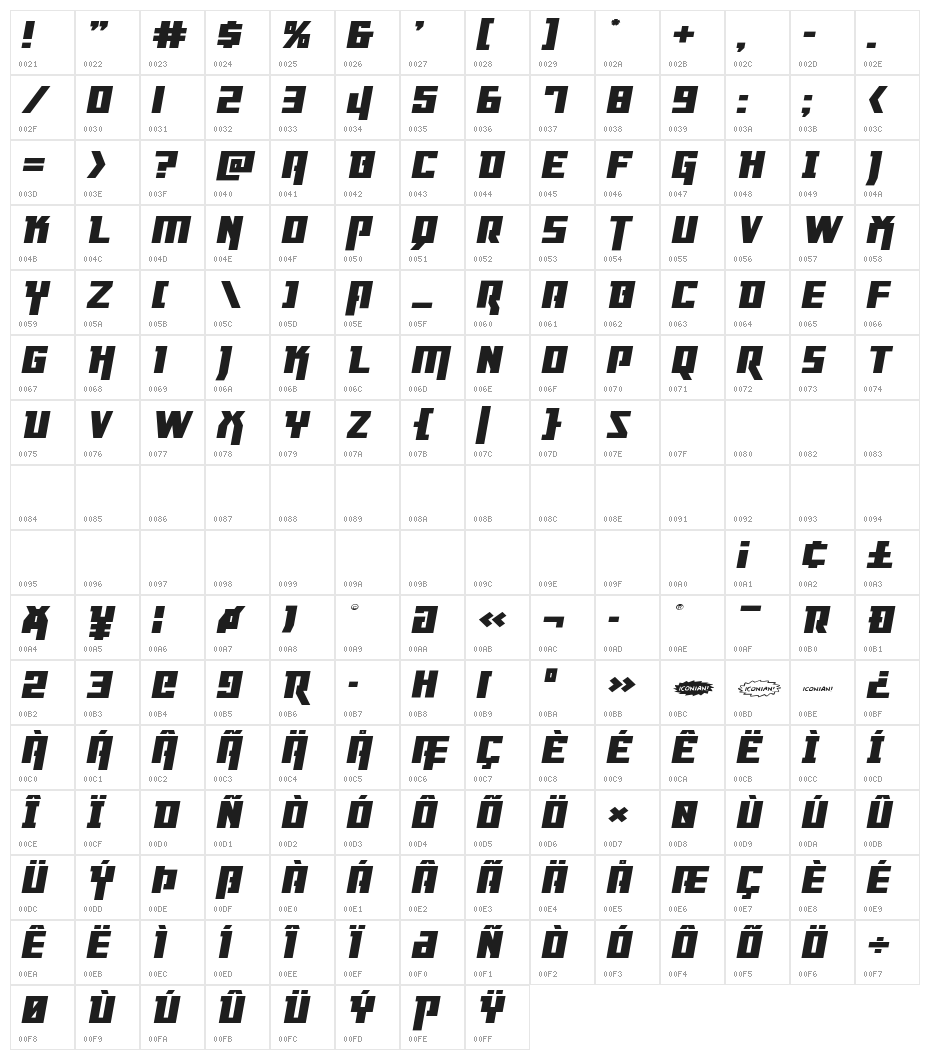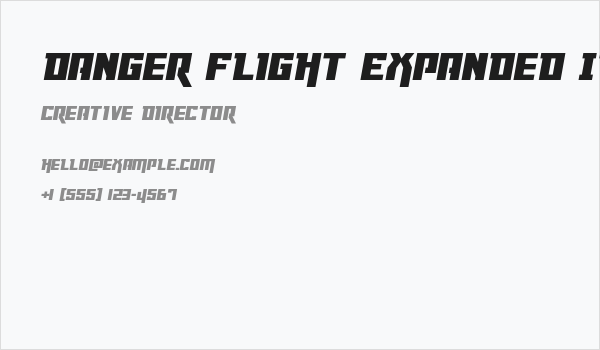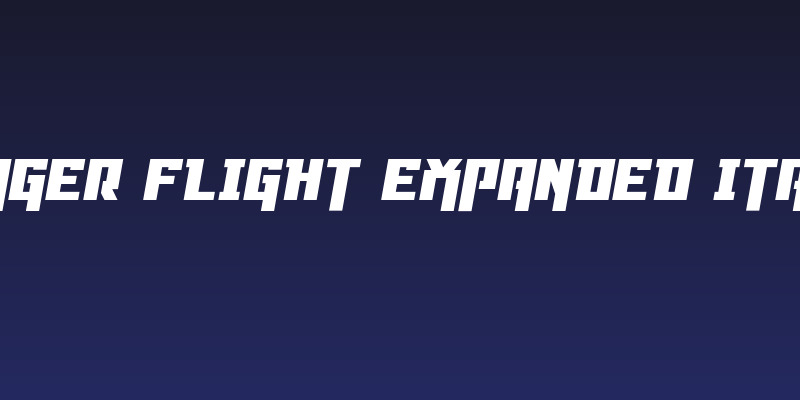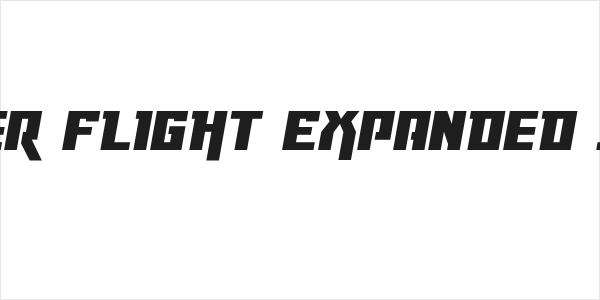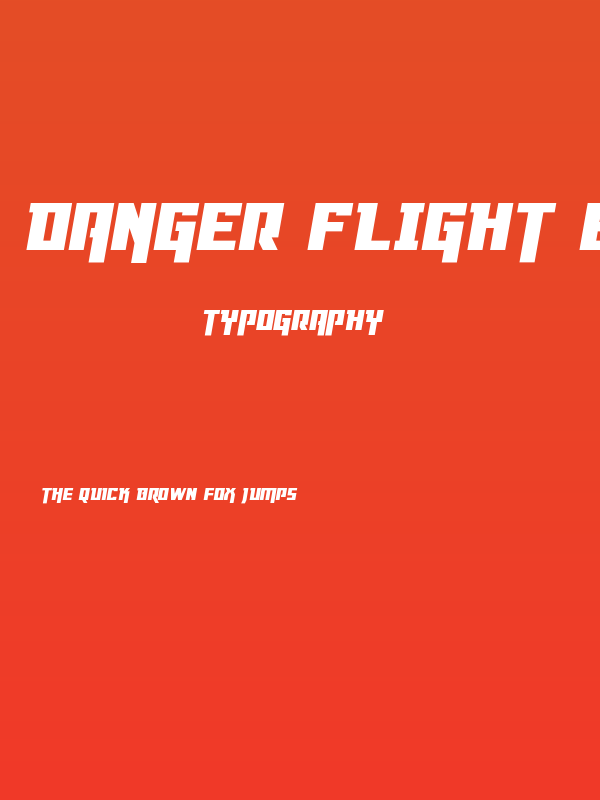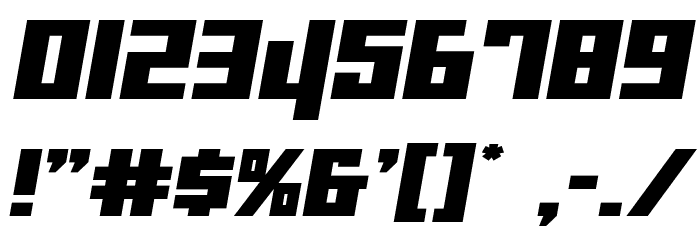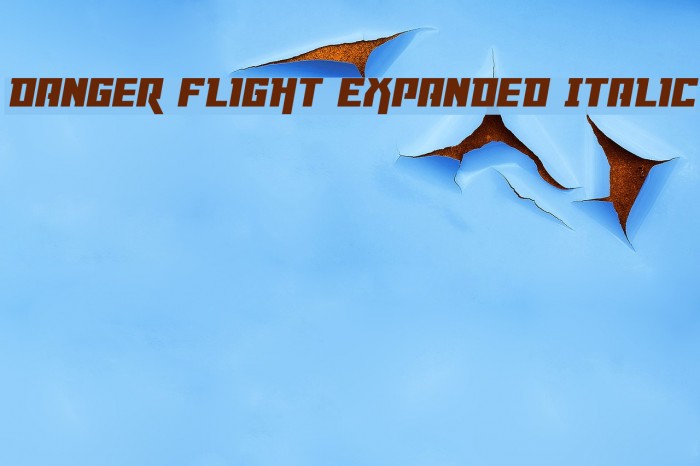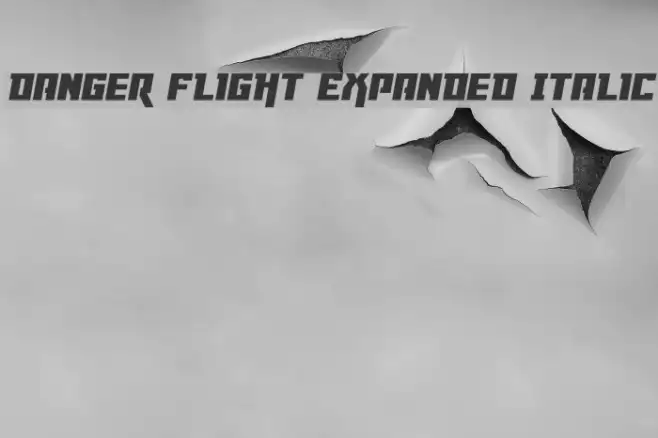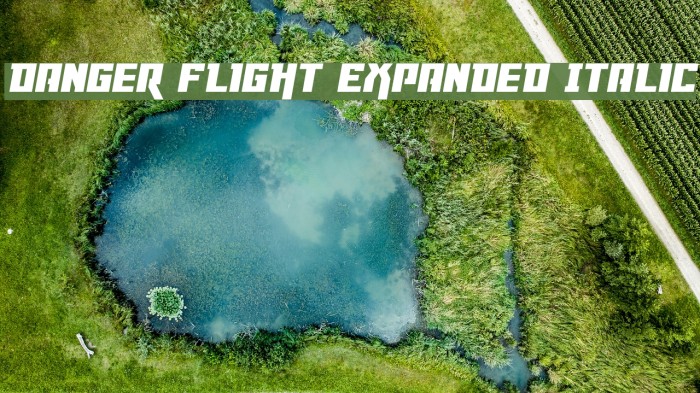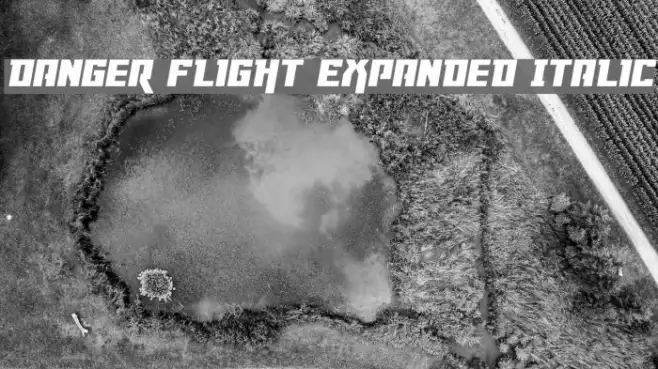
Danger Flight Expanded Italic Font
Danger Flight Expanded Italic Description
This font features a bold and dynamic design with an italicized slant, giving it a sense of motion and urgency. The characters are expanded, providing a wide stance that enhances readability and impact. The angular and geometric shapes of the letters convey a modern and futuristic aesthetic, making it suitable for projects that require a strong visual presence. The font includes a full set of uppercase and lowercase letters, numbers, and a variety of special characters, ensuring versatility for different design needs.
| Proposed Projects | Ideal for use in headlines, posters, branding, and any design that requires a bold and futuristic look. |